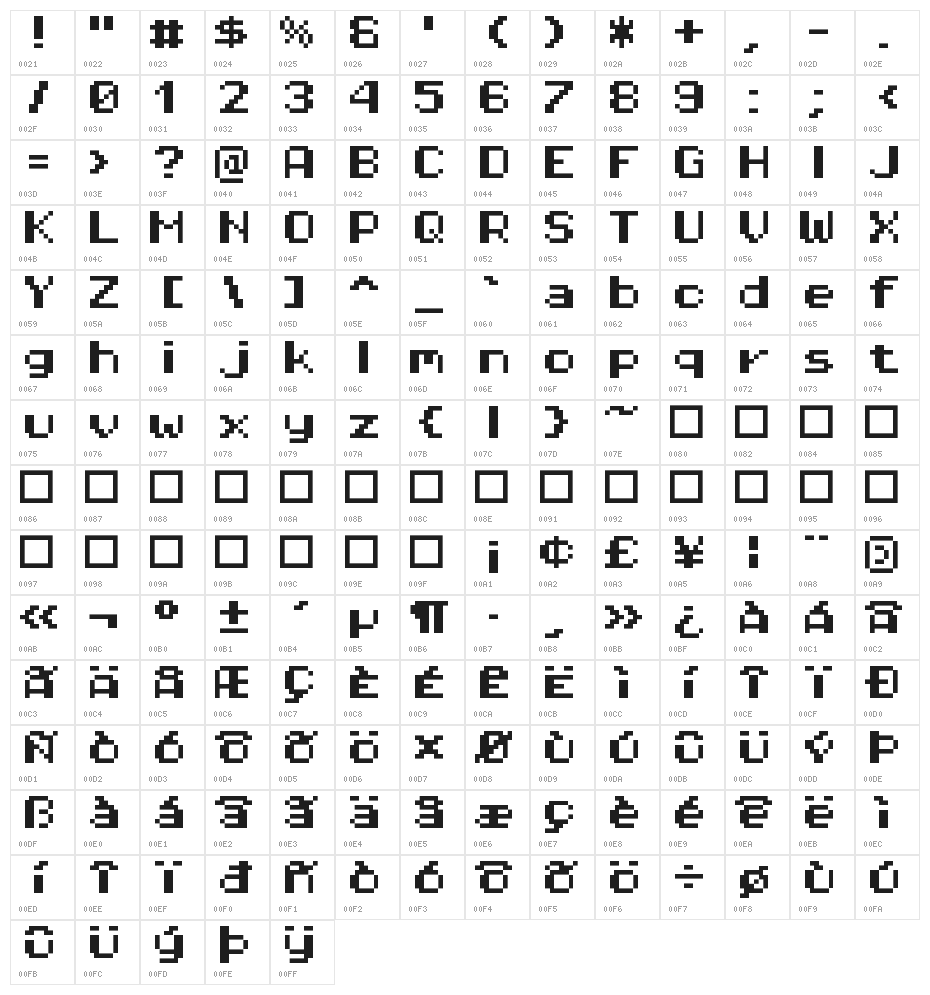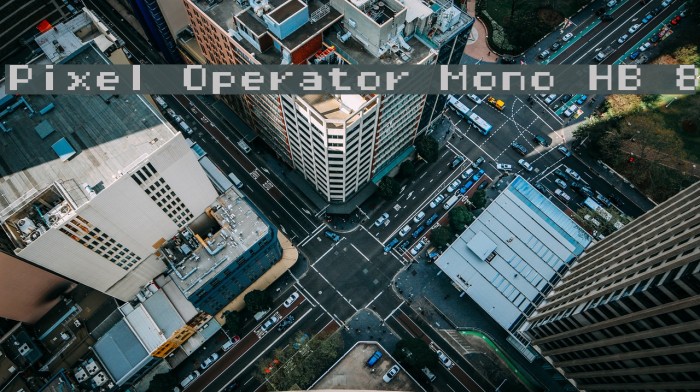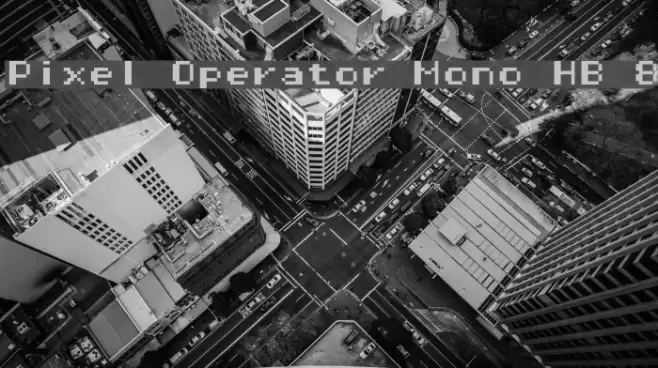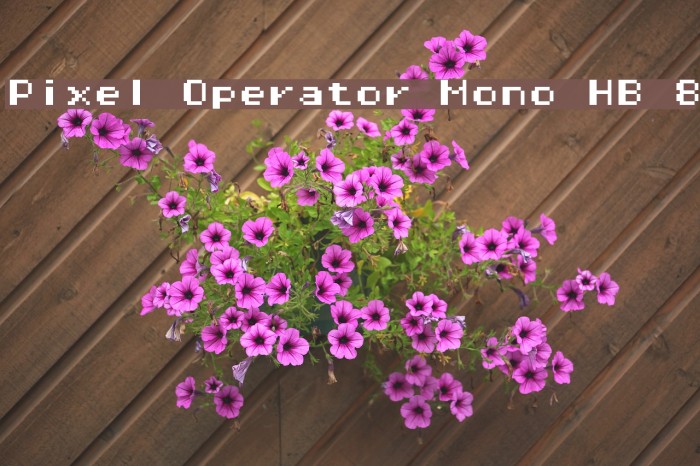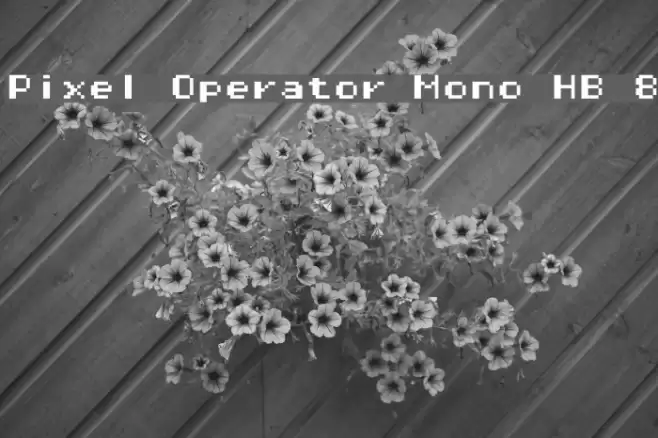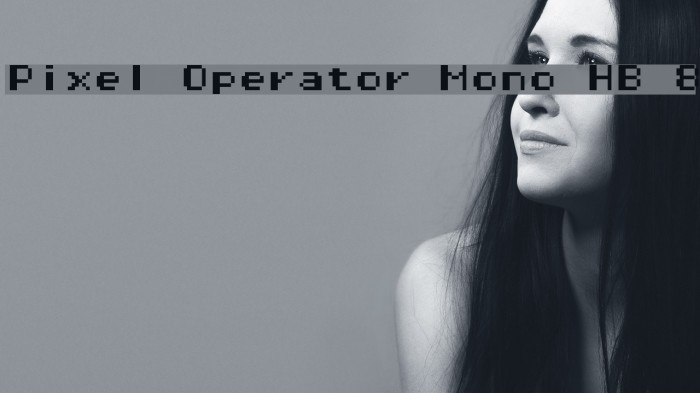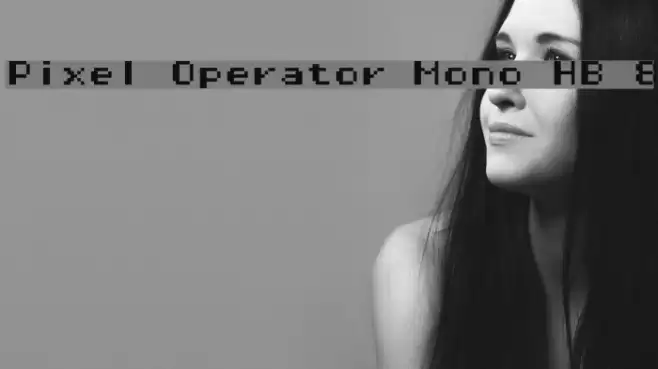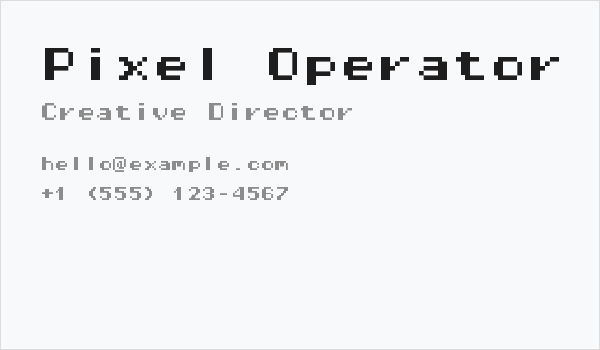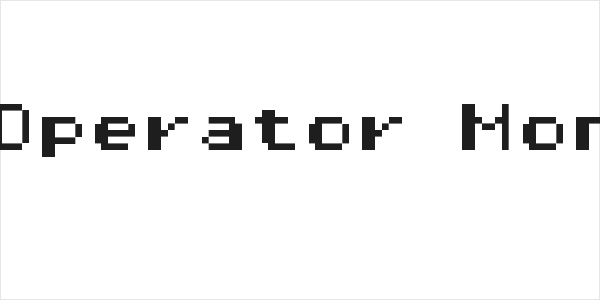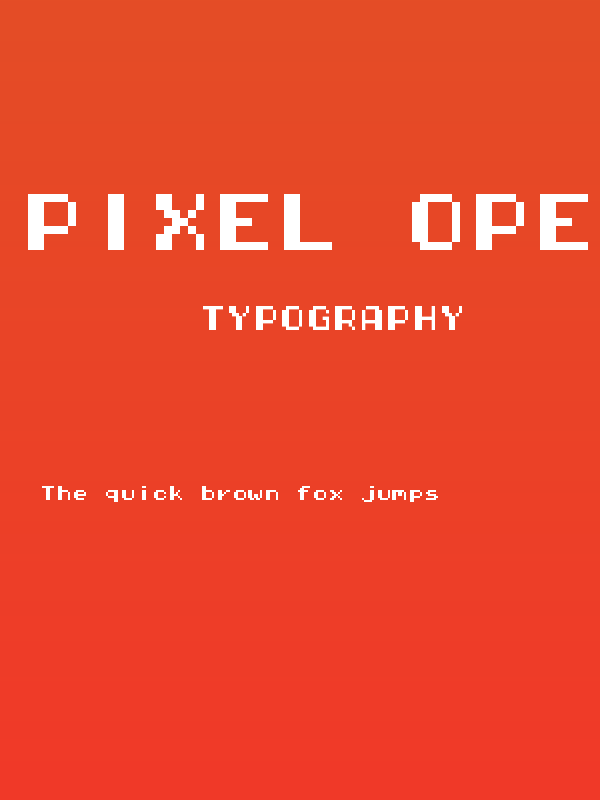
Pixel Operator Mono HB 8 Font
Pixel Operator Mono HB 8 Description
This font features a pixelated, monospaced design that is reminiscent of classic video game typography. Each character is constructed with a grid-like precision, giving it a retro digital aesthetic. The uniformity in width across all characters ensures a consistent and structured appearance, ideal for coding environments or digital displays. The uppercase and lowercase letters maintain a clear distinction, while the numerals and special characters are easily recognizable, enhancing readability. The overall style is functional yet nostalgic, capturing the essence of early computing interfaces.
| Use Case | Coding, Digital displays, Retro designs |
| Proposed Projects | Ideal for coding environments, retro video game designs, digital art projects, and any application requiring a nostalgic computing feel. |